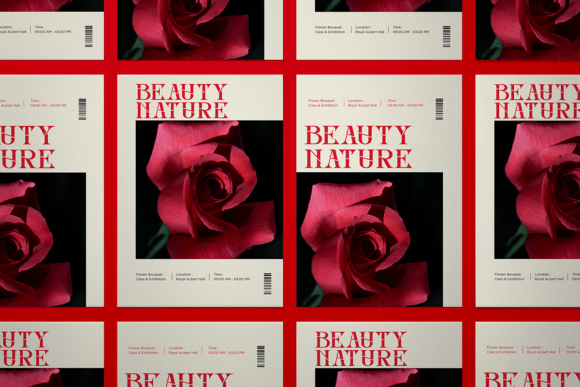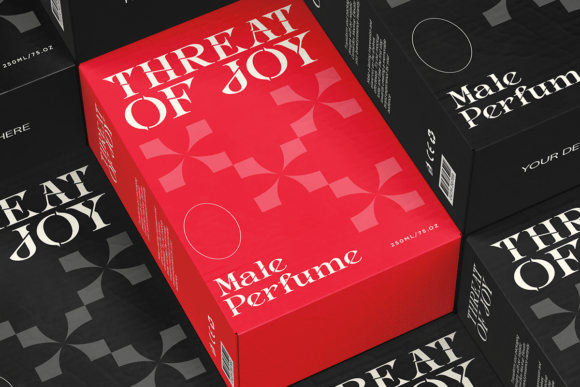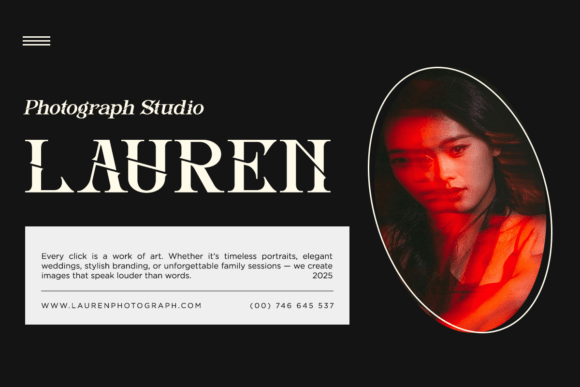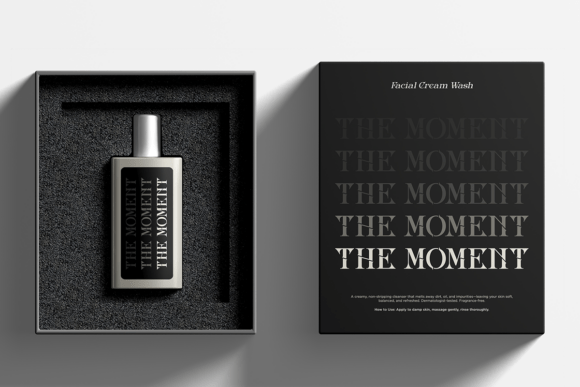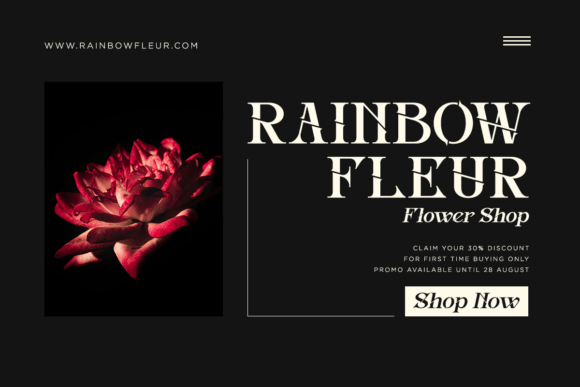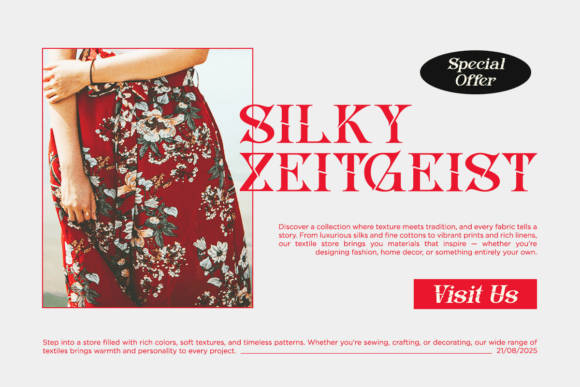
Introduction to Inword Font
Inword is a unique display serif font.
Transform the visual identity of your brand with this gorgeous typeface, which was painstakingly designed to radiate sophistication and grandeur This typeface is perfect for an elegant logo, branding, fashion brand, luxury brand, layout magazine, beauty product, packaging product, perfume, quotes, or simply as a stylish text overlay to any background image.
Inword Font offers exceptional quality and versatility, making it a valuable addition to your design toolkit. Whether you’re creating for personal projects or commercial use, Inword Font delivers professional results.